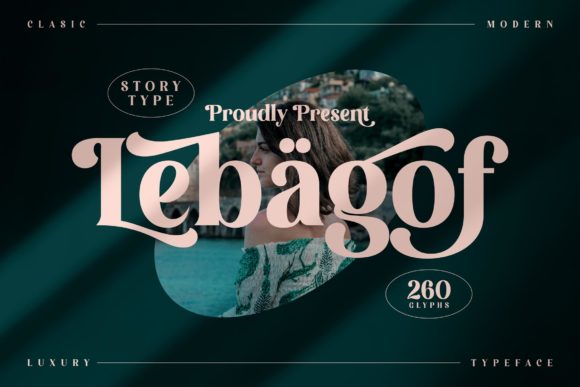
Behold, Lebagof Font - the crowning jewel in the realm of serif fonts, designed with audacious strokes and captivating curves by Storytype Studio. Lebagof is not merely a font; it's an expression of boldness and individuality, ready to elevate your creative vision to new heights.
Fearlessly embrace the grandeur of Lebagof, a font that exudes confidence and sophistication. Its thick, sweeping strokes command attention, effortlessly transforming your words into captivating statements. Craft posters of unparalleled impact, where each letter carries the weight of a thousand stories, leaving an indelible mark on the minds of your audience.
With Lebagof as your ally, you'll discover a world of typographic possibilities. Its versatile nature effortlessly adapts to a symphony of creative endeavors, from branding projects that demand distinction to social media posts that yearn for a touch of elegance. Let Lebagof be your guiding light, illuminating your journey towards creating awe-inspiring designs that resonate with your audience.
Unleash the power of Lebagof, meticulously crafted with precision and passion. Its flawless structure ensures seamless integration into your design projects, allowing your creativity to flow effortlessly. Each glyph and swash is PUA encoded, granting you effortless access to a treasure trove of typographic artistry.
Experience the brilliance of Lebagof, a font that transforms the ordinary into the extraordinary. With each stroke, you'll weave a tapestry of visual enchantment, leaving your audience spellbound by the sheer beauty of your creations. Let Lebagof ignite your imagination and witness the birth of designs that transcend the boundaries of convention.